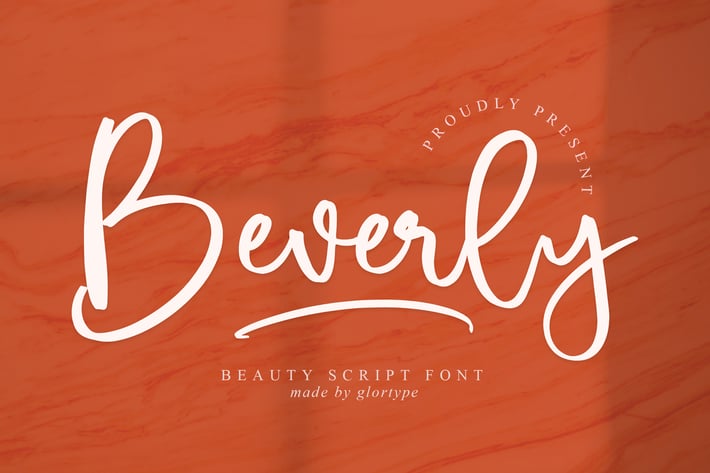
Beverly Script Font
Beverly Script Font is a fresh and stylish handwritten typeface that captures the effortless charm of natural pen strokes. With its clean curves and casual flow, Beverly adds a touch of authenticity and modern warmth to any creative project — from personal stationery to brand identities.
Modern handwritten script with smooth ligatures
Natural pen-style texture for a personal feel
Excellent readability in both small and large sizes
Branding and logo design
Wedding invitations and personal stationery
Social media posts and quotes
Product packaging and promotional materials
* Editorial and lifestyle design
Simple. Elegant. Heartfelt. — Beverly turns handwriting into a statement of style.